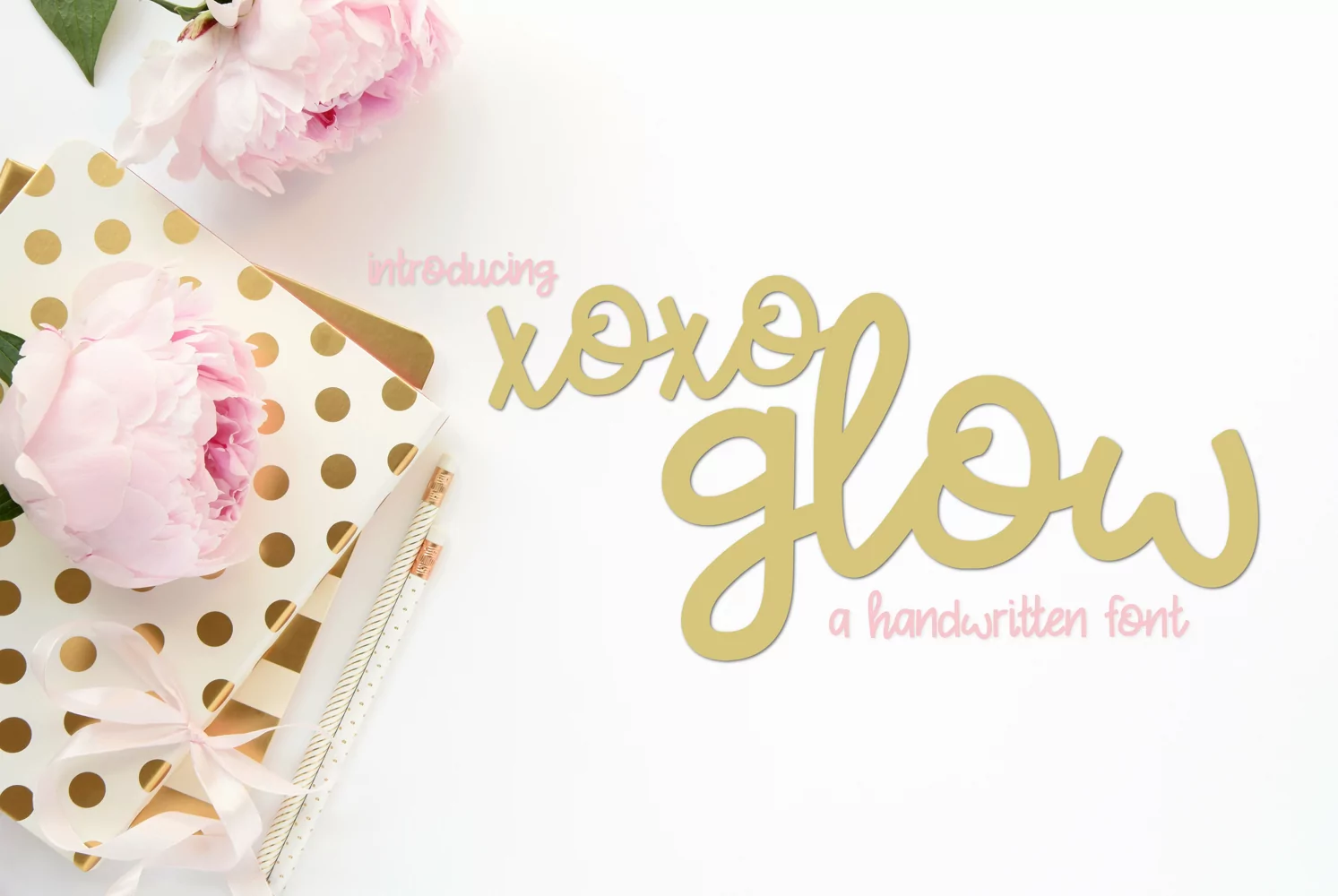
This handwritten script font is an absolute delight. It has a wonderfully realistic appeal and it exudes charm and sass. It's cute and sweet with a touch of attitude. XOXO is a feminine hand drawn font styled with love and an appreciation for lettering. The letters are not too thick and not too thin, Perfect!